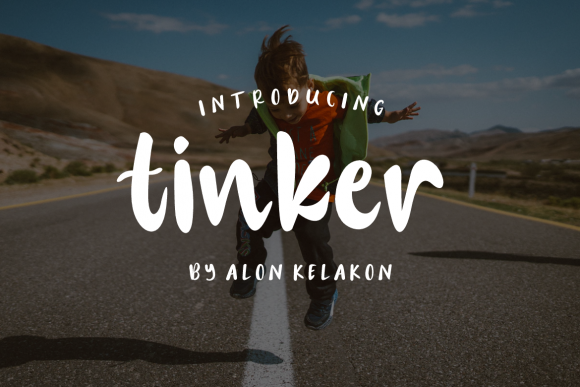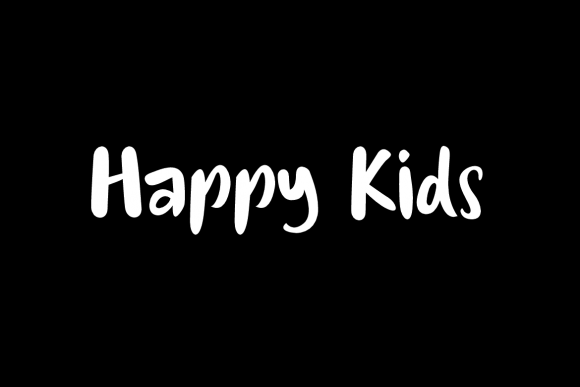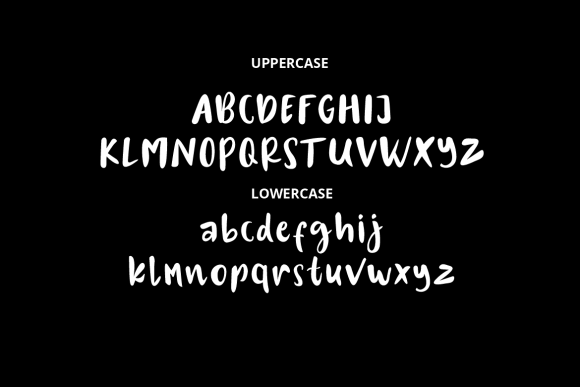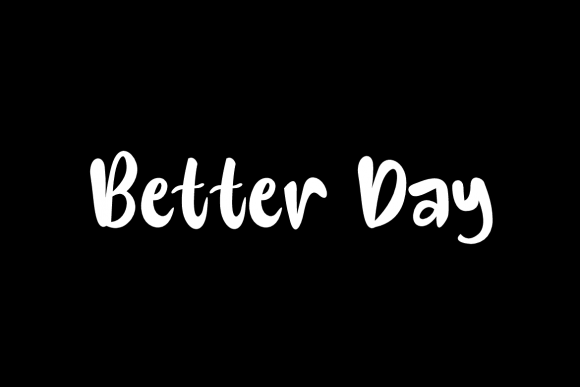
Tinker Font
Tinker is a cool and relaxed script font. Whatever the topic, this font will be a wonderful asset to your font library, as it has the potential to enhance any creation.